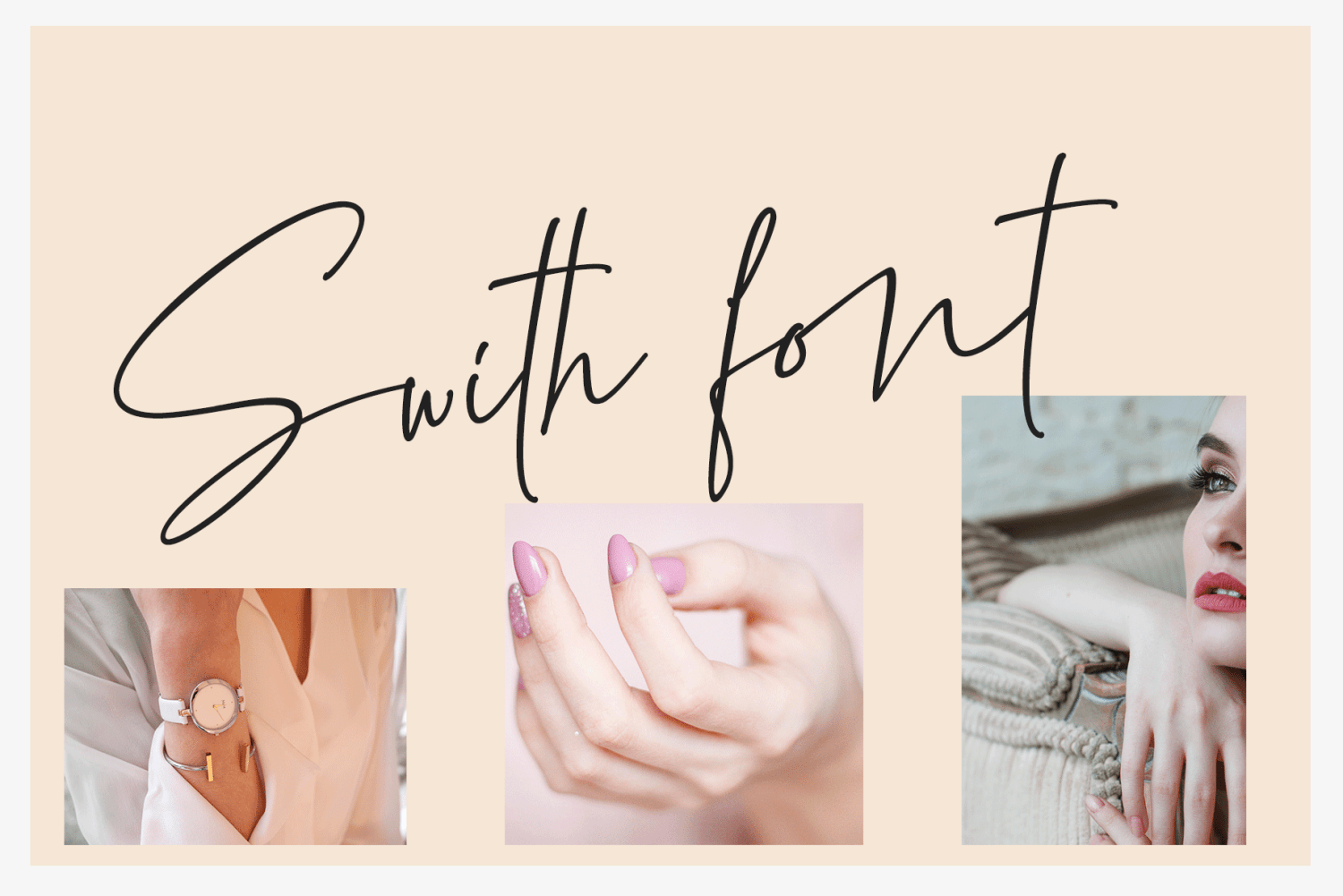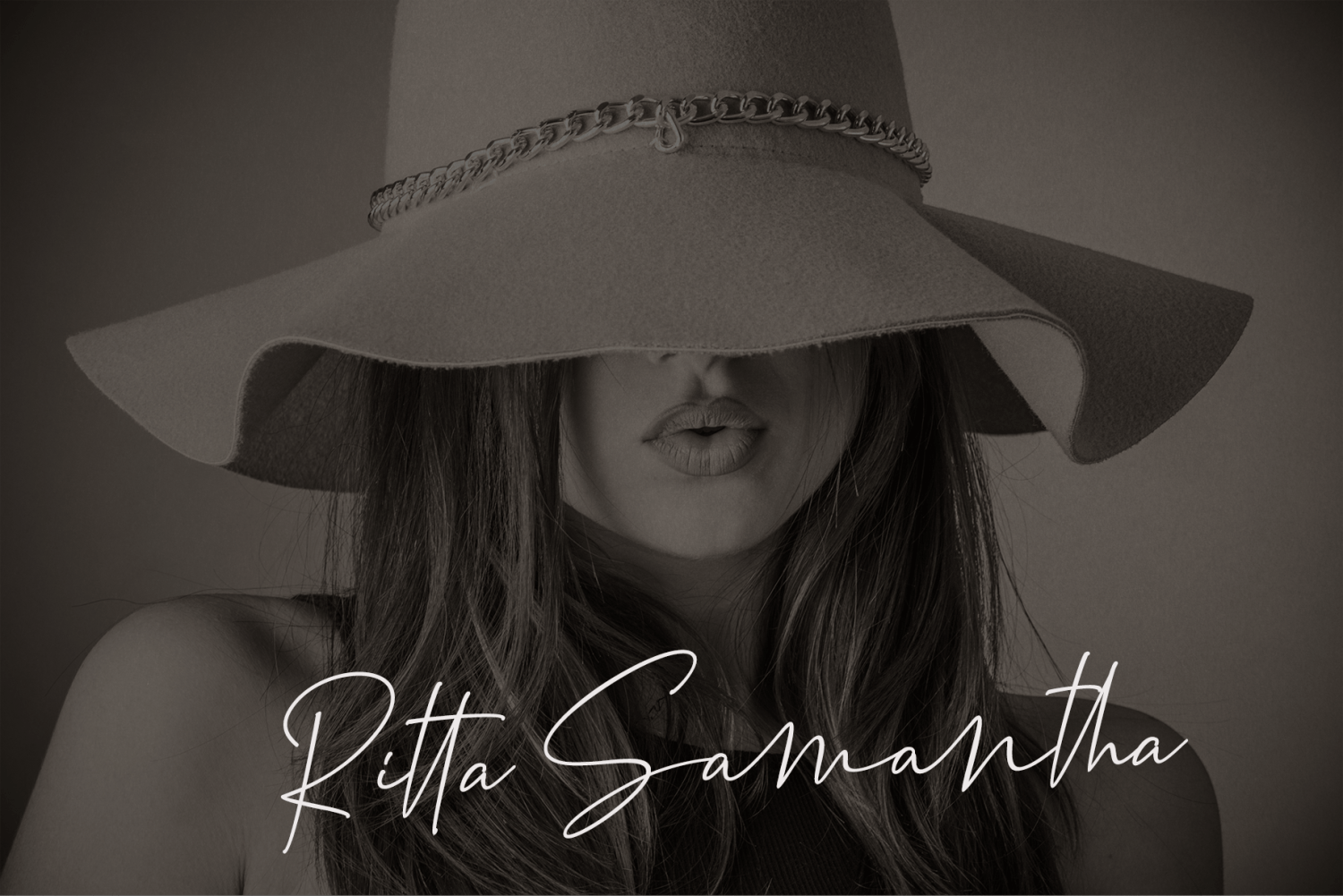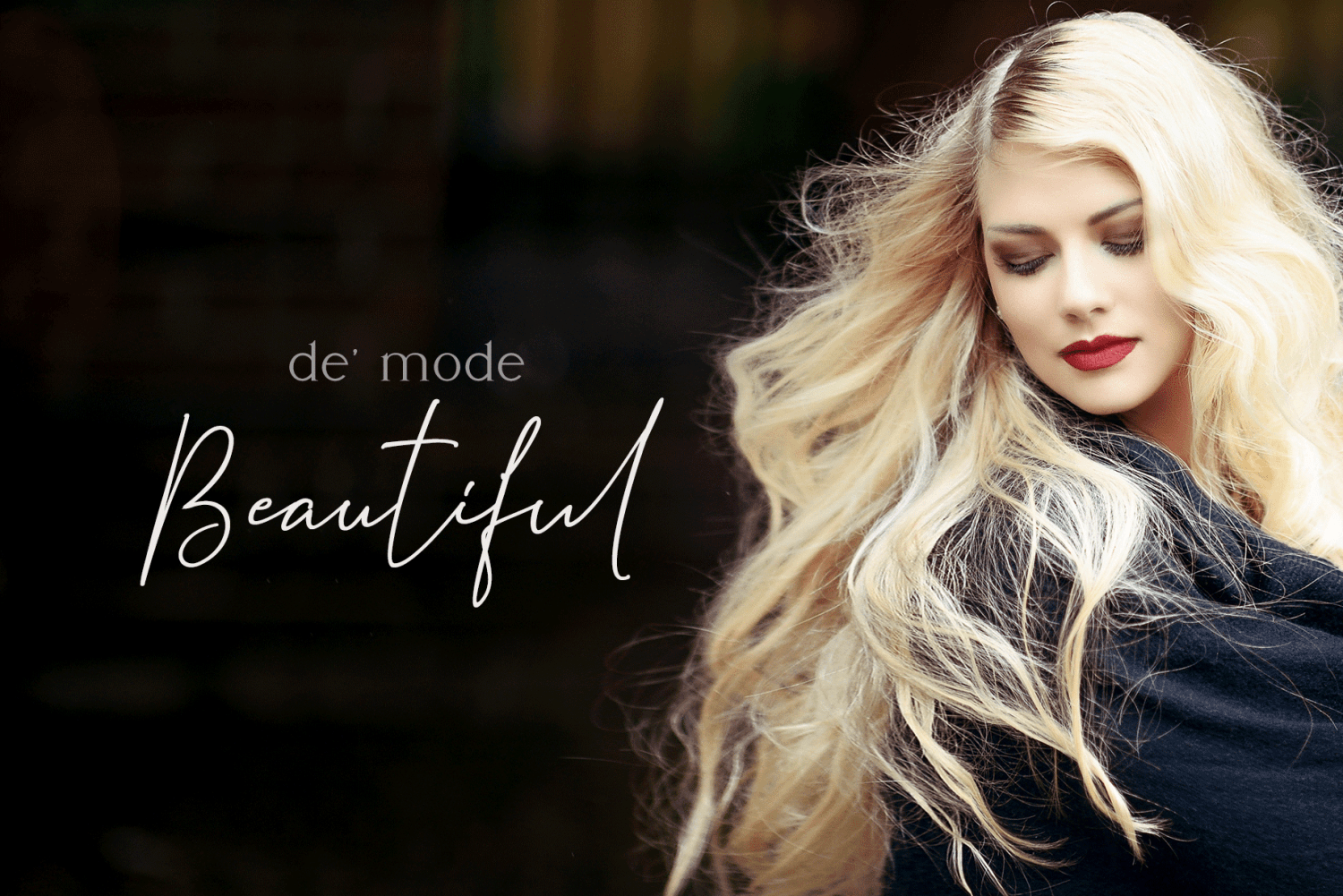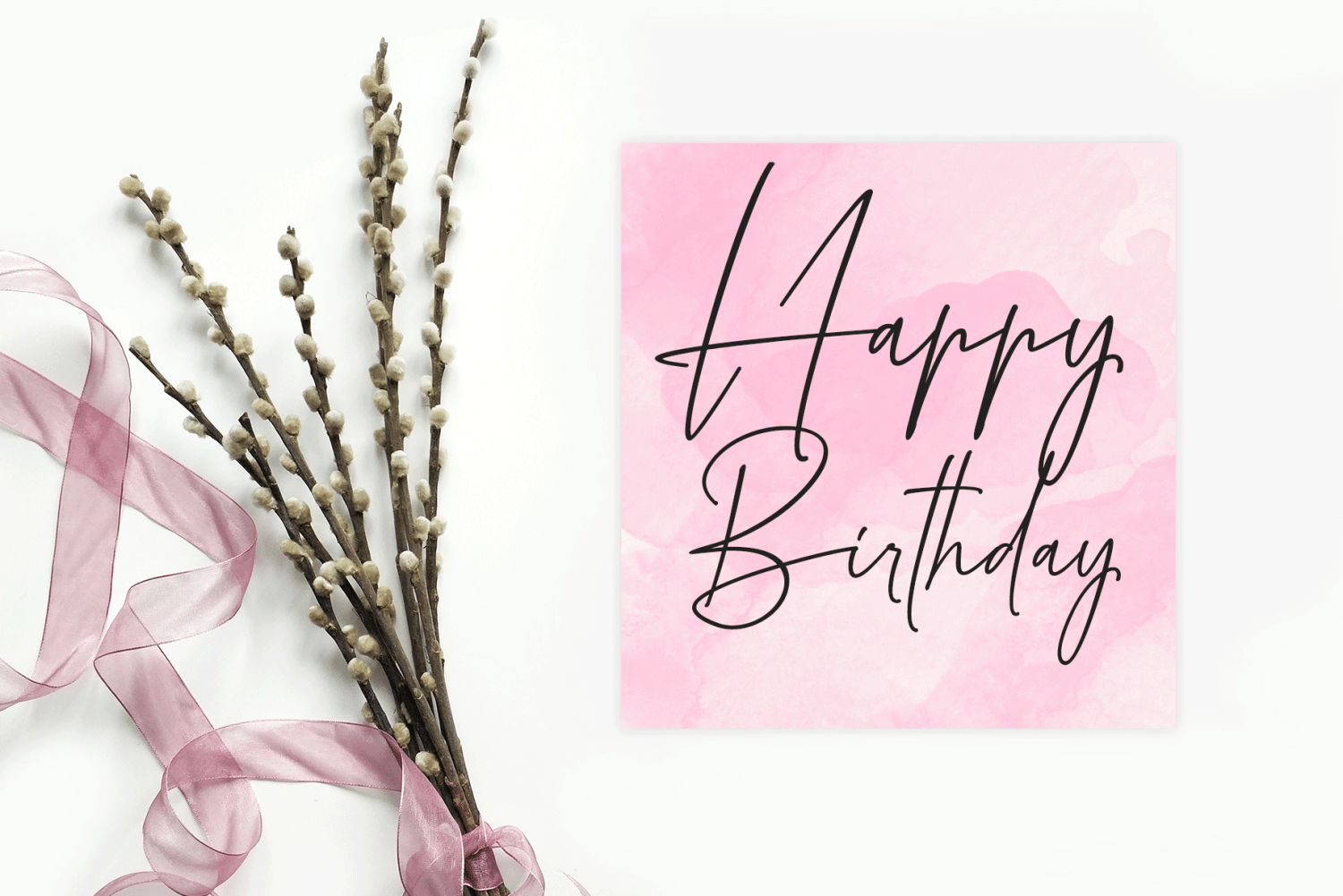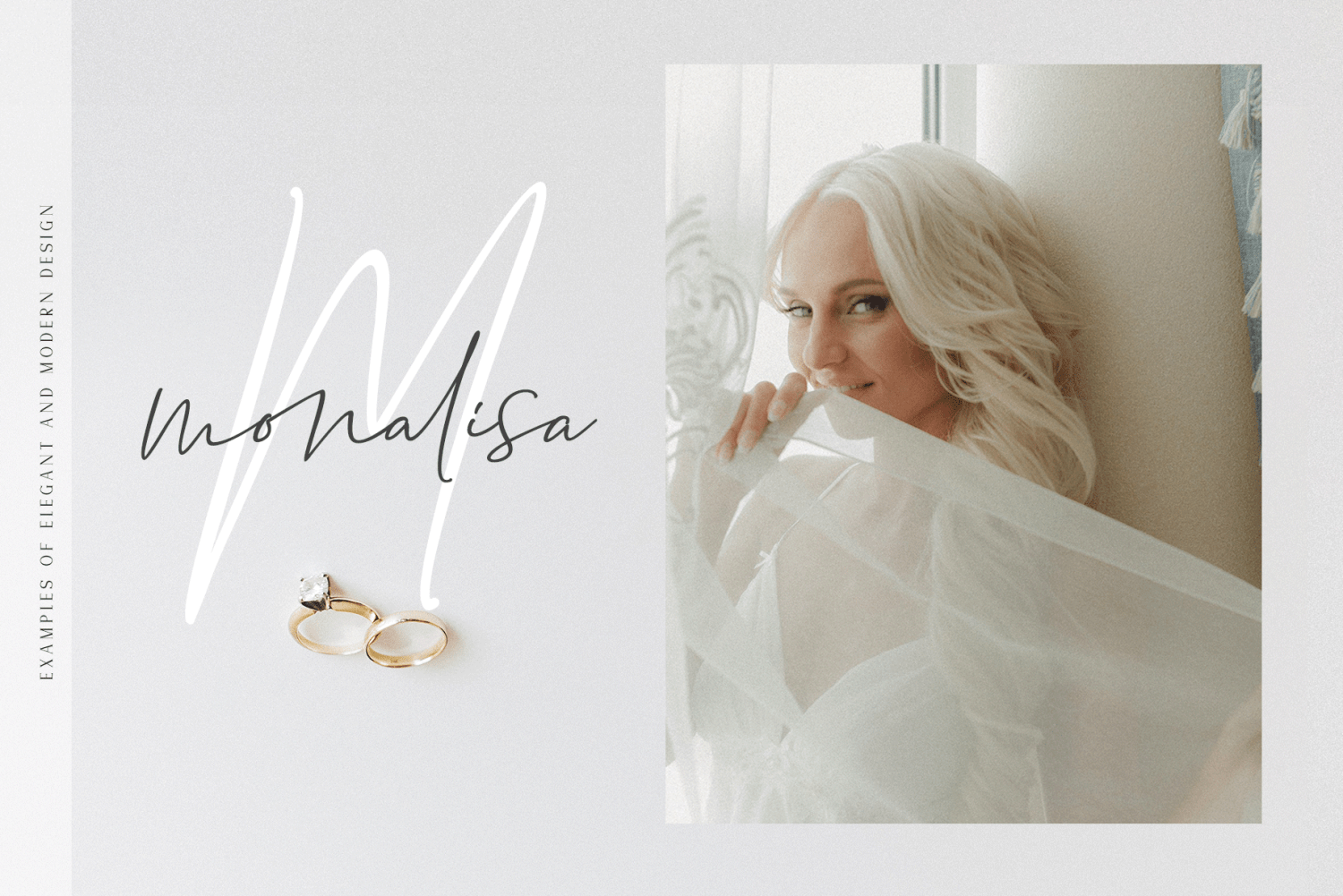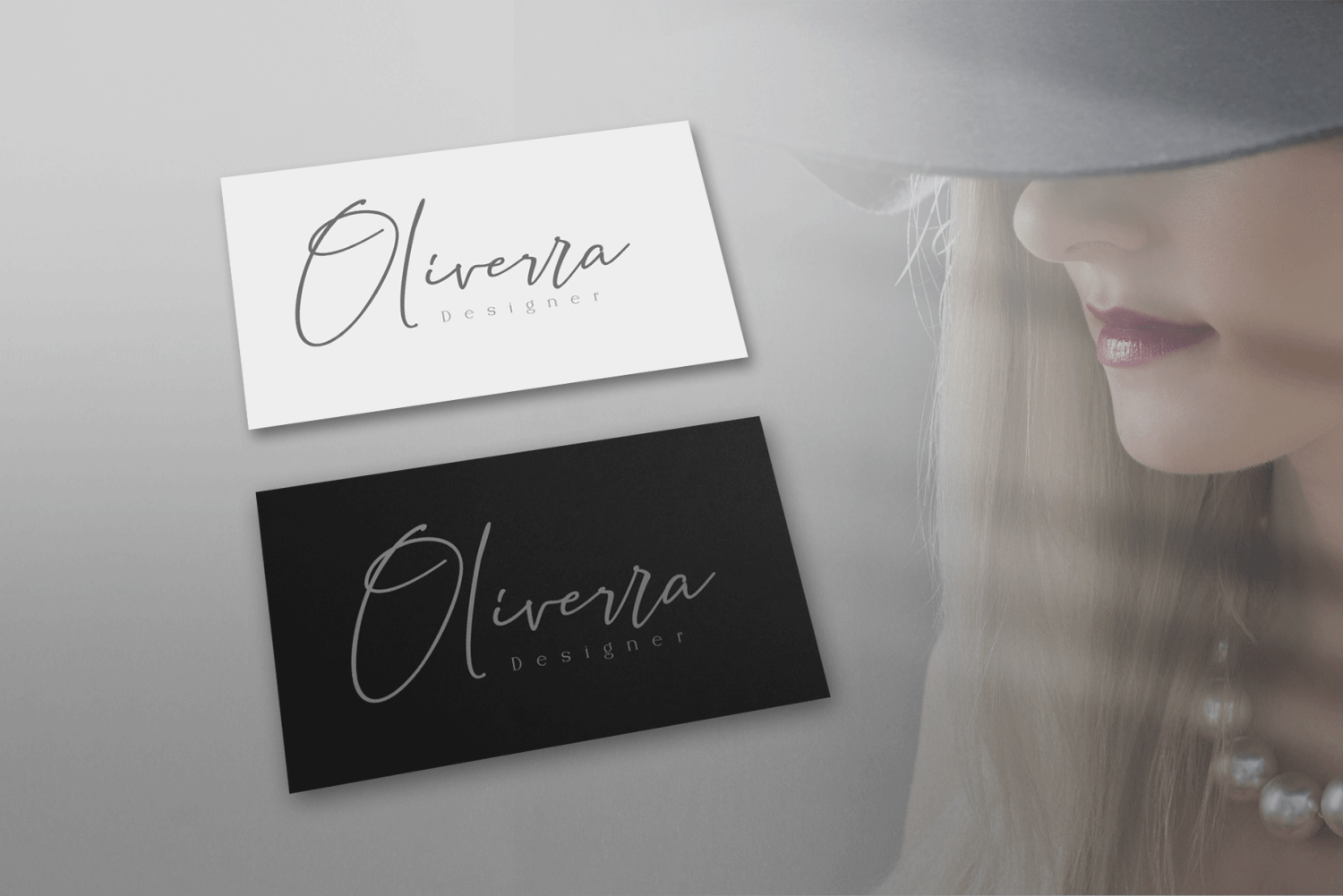
Sallome
Sallome a work that is purely a result of handwriting, has a natural characteristic. this is perfect for invitations, signatures, blogs, social media, business cards, product brands.
Sallome has Stylistic standard, Stylistic Alternate, Stylistic Sets and ligatures. and includes uppercase and lowercase letters, numbers and punctuation marks.
his font has 47 ligature, this ligature serves to maximize the use of letters to be real, the Sallome Font contains the following ligatures:
ff tt th off st ss sh mm et ot it ct nt at ll nl sl of ol ul al el oh il cl ck ab on am an rr ac oo ae om all St